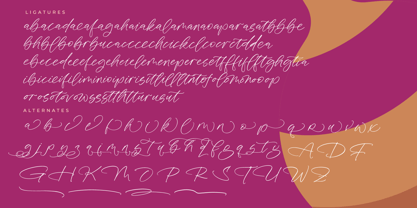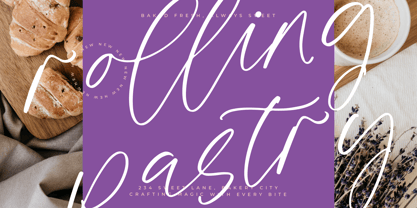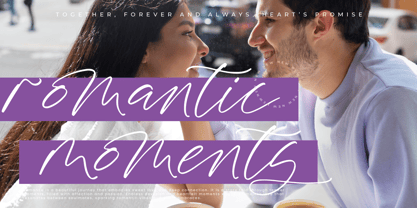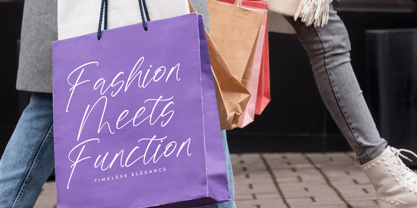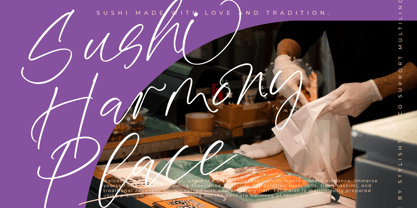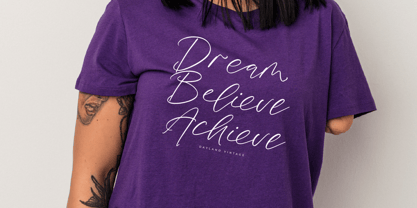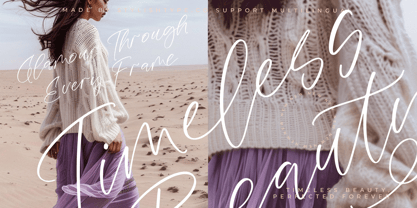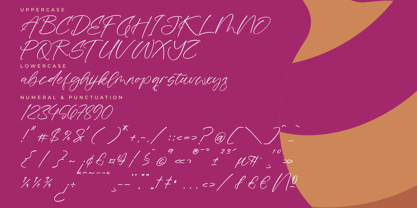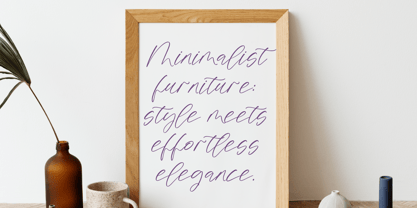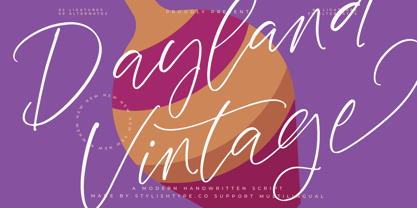
Dayland Vintage
by Stylishtype Studio
The Dayland Vintage Font Family was designed by Heru Utama Putra and published by Stylishtype Studio. Dayland Vintage contains 2 styles and family package options. More about this family
Dayland Vintage - Modern Handwritten Script , from Stylishtype, Suitable for any projects such as: logos, branding projects, homeware designs, product packaging, mugs, quotes, posters, shopping bags, t-shirts, book covers, name card, invitation cards, greeting cards, label, photography, watermark, special events, and all your other luxury and beautiful projects that need a Luxury Script taste.